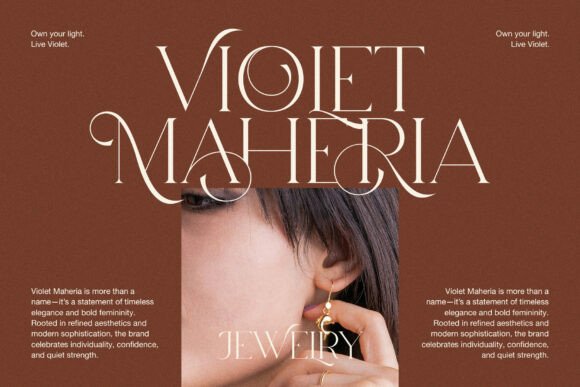
Kodam Font: Elevate Your Design with Elegance and Sophistication
The world of typography is vast and diverse, with countless font styles to choose from, each with its unique characteristics and uses. Among these, serif fonts have always been a popular choice for designs that require a touch of elegance, sophistication, and tradition. One such font that has been making waves in the design community is the Kodam Font, specifically the Kodam Elegant Serif Font. In this article, we will delve into the world of Kodam Font, exploring its features, benefits, and uses, and why it has become a go-to choice for designers seeking to elevate their projects with a touch of class and refinement.
Introducing Kodam Elegant Serif Font
Kodam Elegant Serif Font is a stunning blend of modern sophistication and timeless elegance. This exquisite serif typeface is designed to bring a touch of class and refinement to any creative project, making it the perfect choice for those seeking a distinctive, high-end look. With its beautifully crafted serifs and graceful curves, Kodam Elegant offers a unique and stylish appearance that speaks to both tradition and contemporary design.
Key Features of Kodam Elegant Serif Font
- Modern Sophistication: Kodam Elegant boasts a modern design that sets it apart from traditional serif fonts. Its sleek lines and refined features give it a contemporary look that is perfect for designs that require a fresh and updated feel.
- Timeless Elegance: Despite its modern characteristics, Kodam Elegant maintains a timeless elegance that ensures it will remain relevant for years to come. Its classic letterforms and beautifully crafted serifs evoke a sense of tradition and sophistication.
- Versatility: Kodam Elegant is a versatile font that can be used for a wide range of projects, from premium branding and high-end product packaging to luxurious magazine layouts and elegant websites.
- Readability: One of the key features of Kodam Elegant is its excellent readability. Its clear and well-defined letterforms make it easy to read, even at small sizes, ensuring that your message is conveyed effectively.
Uses of Kodam Elegant Serif Font
Kodam Elegant Serif Font is suitable for a variety of design projects that require a touch of elegance and sophistication. Some of the most popular uses of this font include:
Design Projects that Benefit from Kodam Elegant
- Premium Branding: Kodam Elegant is perfect for creating a strong and sophisticated brand identity. Its elegant design and modern characteristics make it an excellent choice for logos, business cards, and other branding materials.
- High-End Product Packaging: For products that require a luxurious and high-end feel, Kodam Elegant is the perfect choice. Its refined design and classic letterforms make it suitable for packaging designs that require a touch of sophistication.
- Luxurious Magazine Layouts: Kodam Elegant is also suitable for magazine layouts that require a touch of elegance and refinement. Its excellent readability and stylish appearance make it perfect for articles, headlines, and other editorial content.
- Elegant Websites: For websites that require a sophisticated and modern design, Kodam Elegant is an excellent choice. Its clean lines and refined features make it perfect for headers, titles, and other website elements.
Benefits of Using Kodam Elegant Serif Font
Using Kodam Elegant Serif Font offers numerous benefits for designers and businesses looking to elevate their projects with a touch of elegance and sophistication. Some of the key benefits include:
Why Choose Kodam Elegant Serif Font?
- Unique and Distinctive Design: Kodam Elegant offers a unique and distinctive design that sets it apart from other serif fonts. Its modern characteristics and timeless elegance make it a standout choice for designers seeking to create a lasting impression.
- High-End Look: Kodam Elegant is designed to provide a high-end look that is perfect for luxury brands and designs that require a touch of sophistication.
- Excellent Readability: Kodam Elegant boasts excellent readability, ensuring that your message is conveyed effectively and efficiently.
- Versatility: Kodam Elegant is a versatile font that can be used for a wide range of projects, making it a valuable addition to any designer’s font library.
Industries that Benefit from Kodam Elegant Serif Font
Kodam Elegant Serif Font is suitable for a variety of industries that require a touch of elegance and sophistication. Some of the industries that benefit from this font include:
Industries that Benefit from Kodam Elegant
- Fashion: Kodam Elegant is perfect for fashion brands that require a sophisticated and modern design. Its elegant appearance and refined features make it suitable for logos, advertisements, and other marketing materials.
- Beauty: For beauty brands that require a touch of luxury and sophistication, Kodam Elegant is an excellent choice. Its high-end look and excellent readability make it perfect for packaging designs, advertisements, and other marketing materials.
Why Kodam Elegant Serif Font is a Must-Have for Designers
Kodam Elegant Serif Font is a must-have for designers seeking to create a lasting impression with their projects. Its sophisticated style, versatility, and excellent readability make it an essential font for any design project that requires a touch of elegance and sophistication. With Kodam Elegant, you can create designs that stand out from the crowd and leave a lasting impression on your audience.